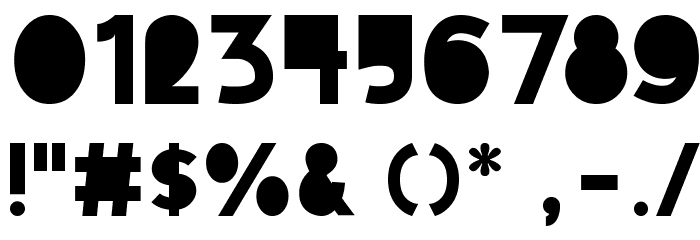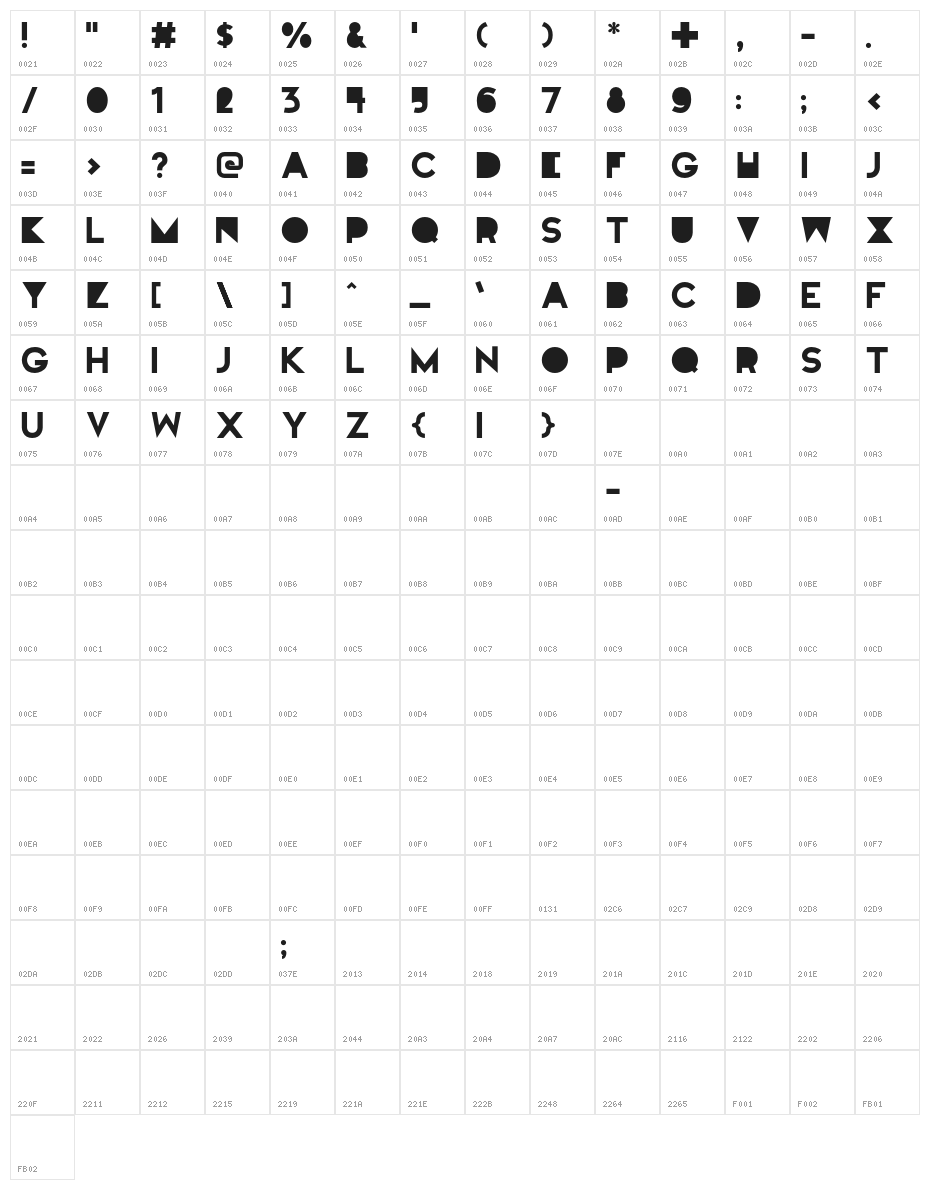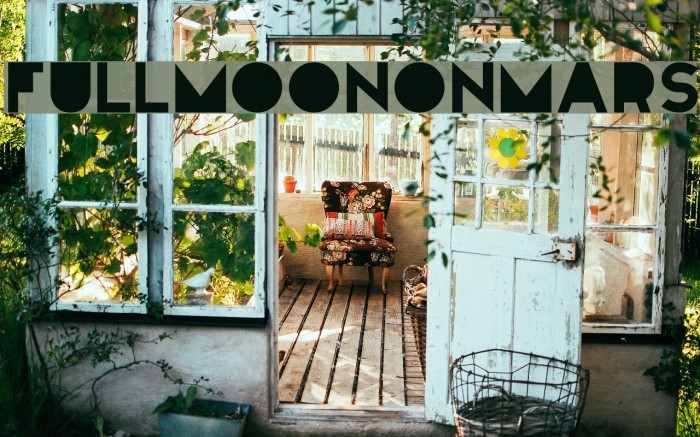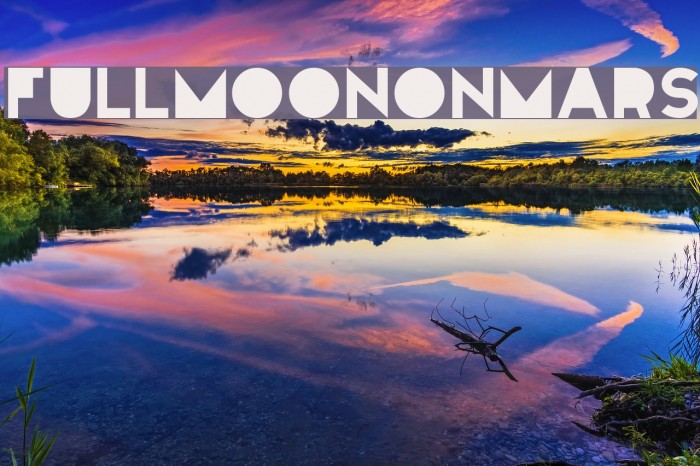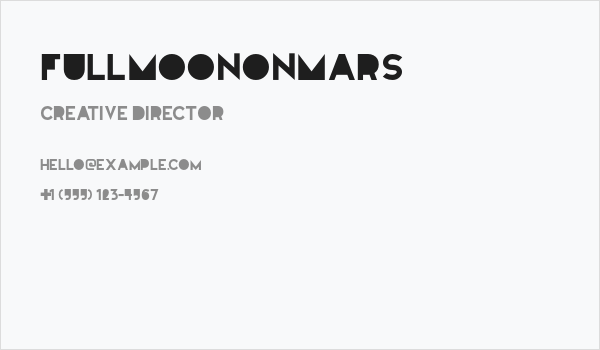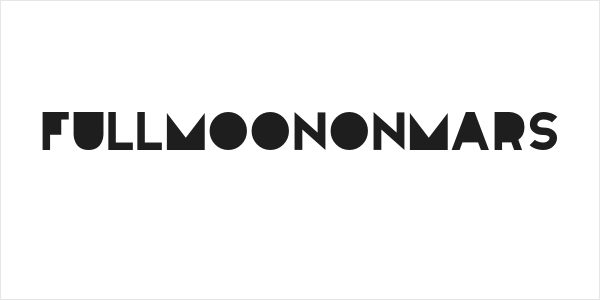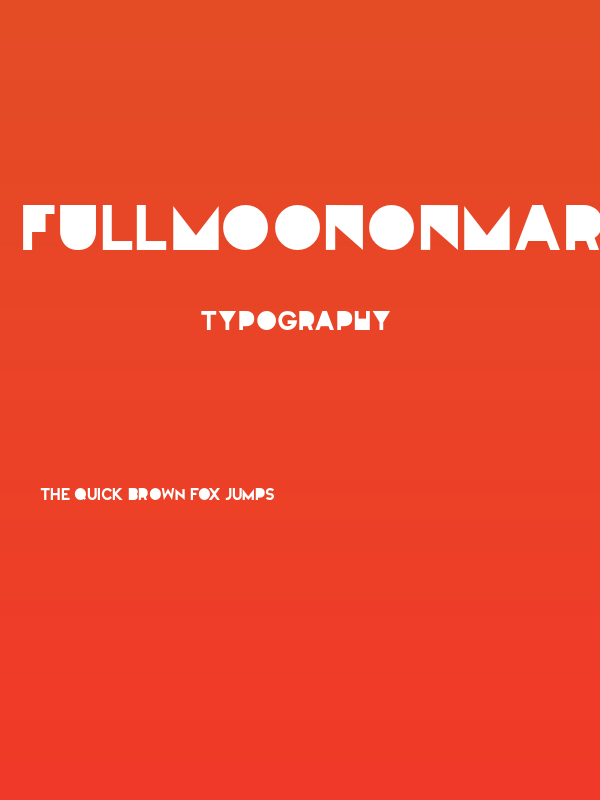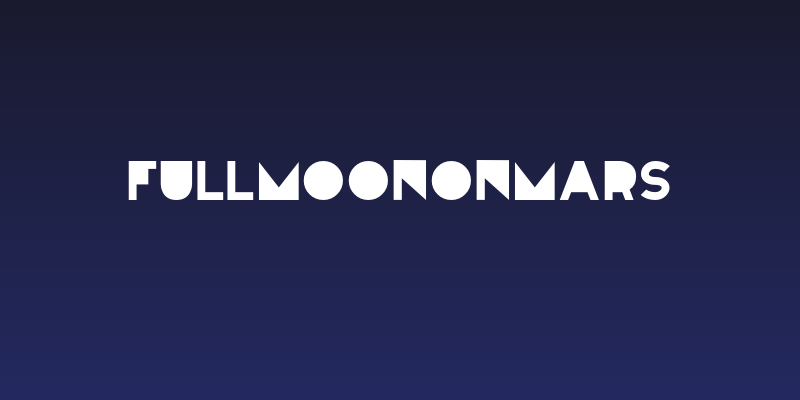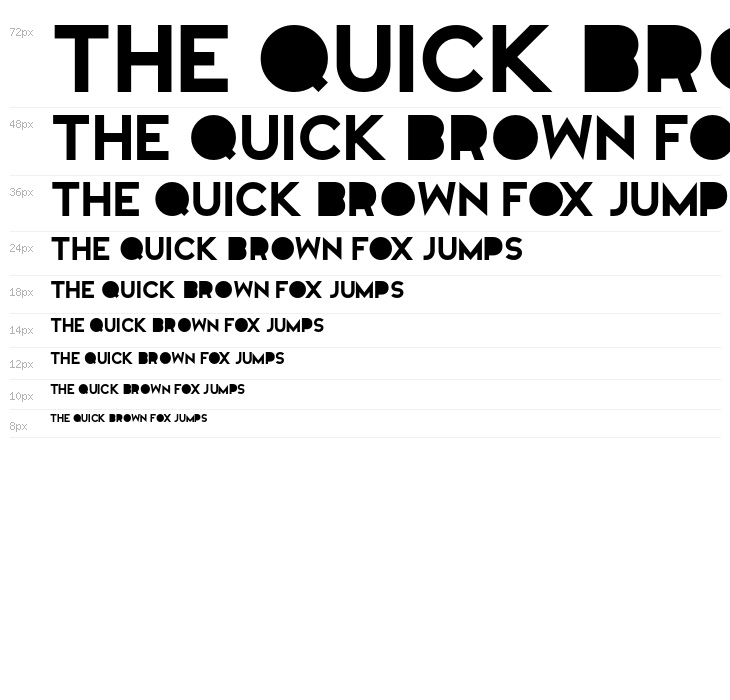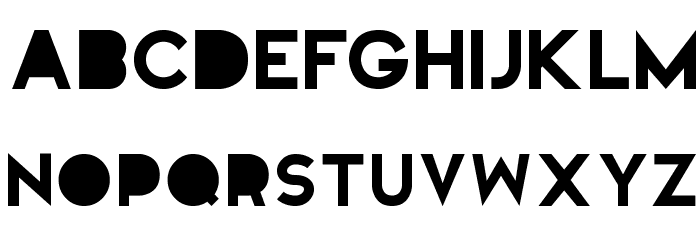
FULLMoonOnMars Font
FULLMoonOnMars Description
This font features a bold, geometric design with strong, angular shapes and a modern aesthetic. The uppercase letters are characterized by sharp edges and a consistent stroke width, creating a striking and impactful appearance. The numbers and special characters maintain this bold style, ensuring uniformity across all characters. The font's design is highly stylized, making it ideal for attention-grabbing headlines and logos. Its unique geometric forms lend a futuristic and avant-garde feel, suitable for projects that require a modern and dynamic look.
| Proposed Projects | Ideal for branding, posters, headlines, and any project requiring a modern, eye-catching typeface. |